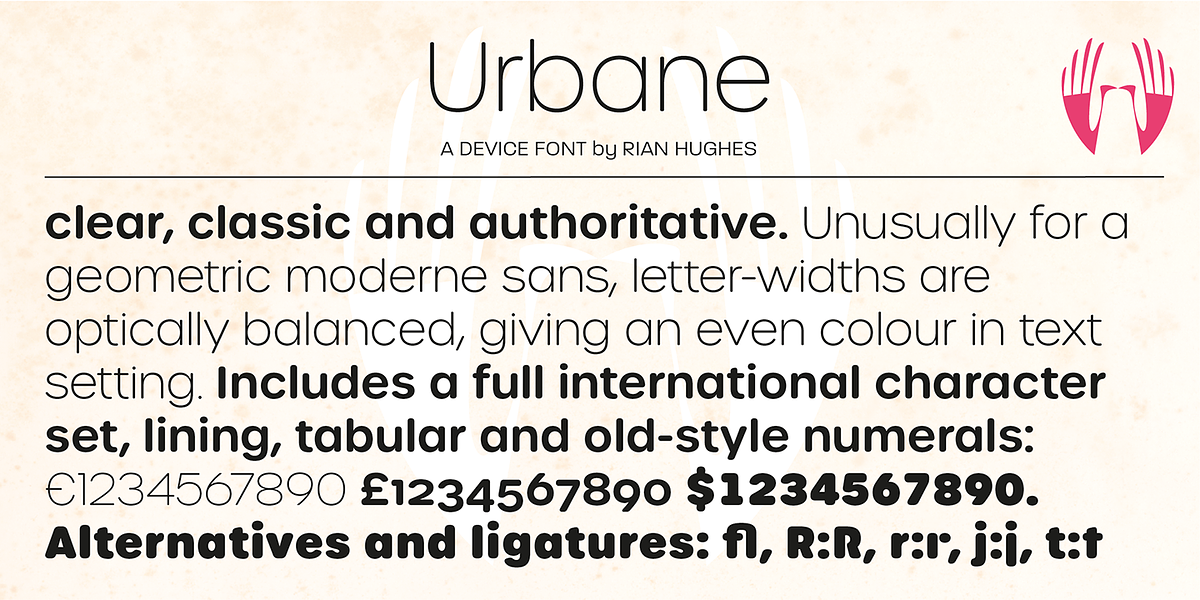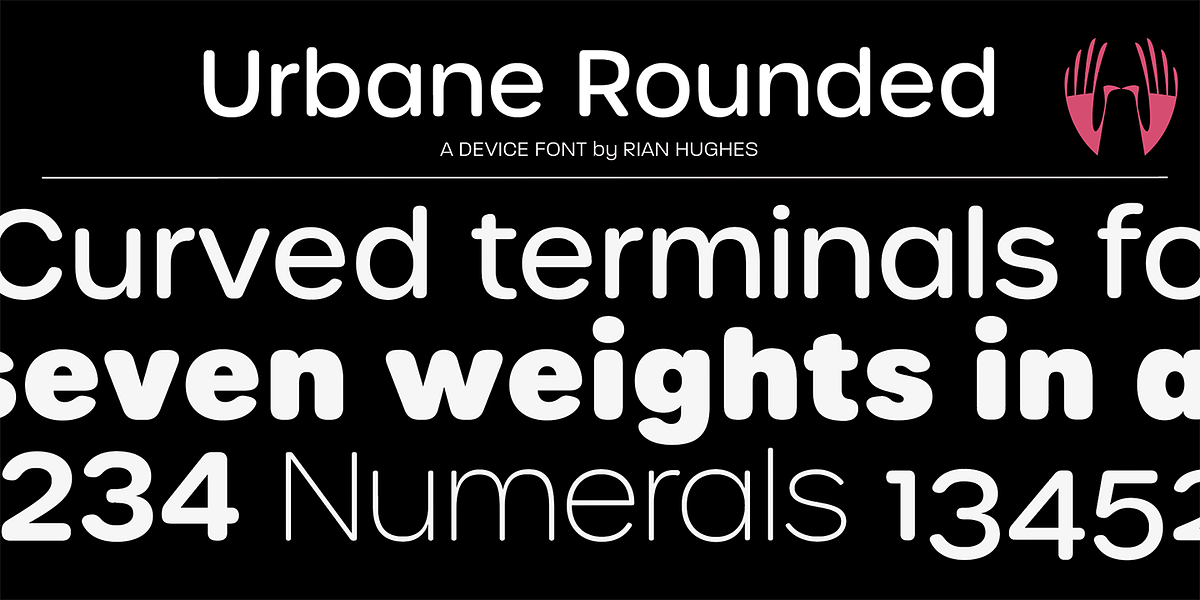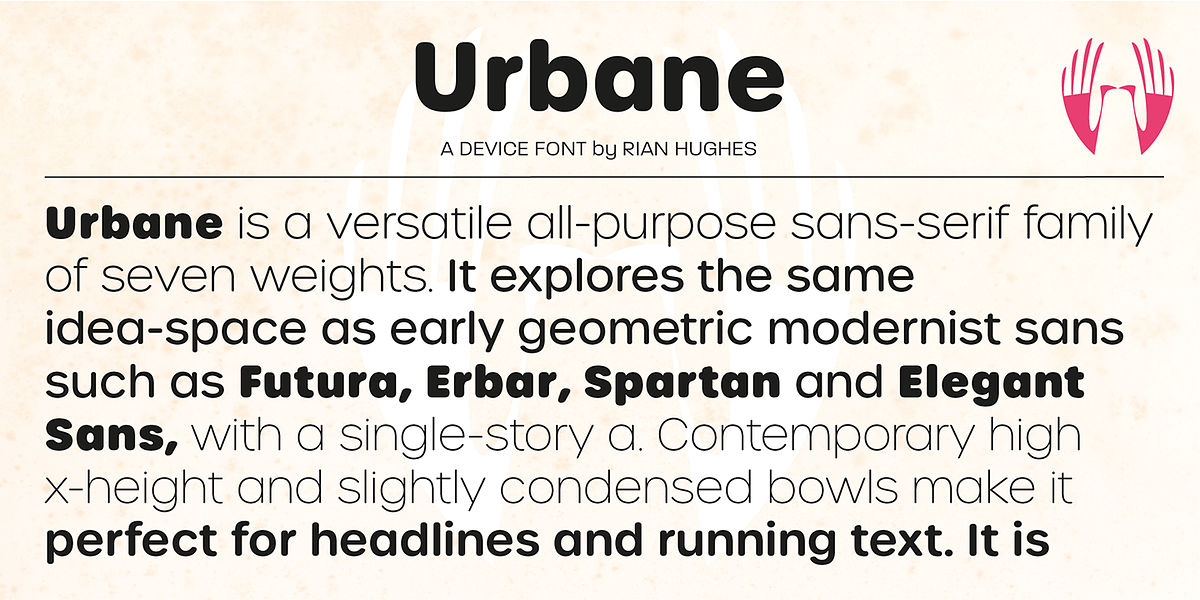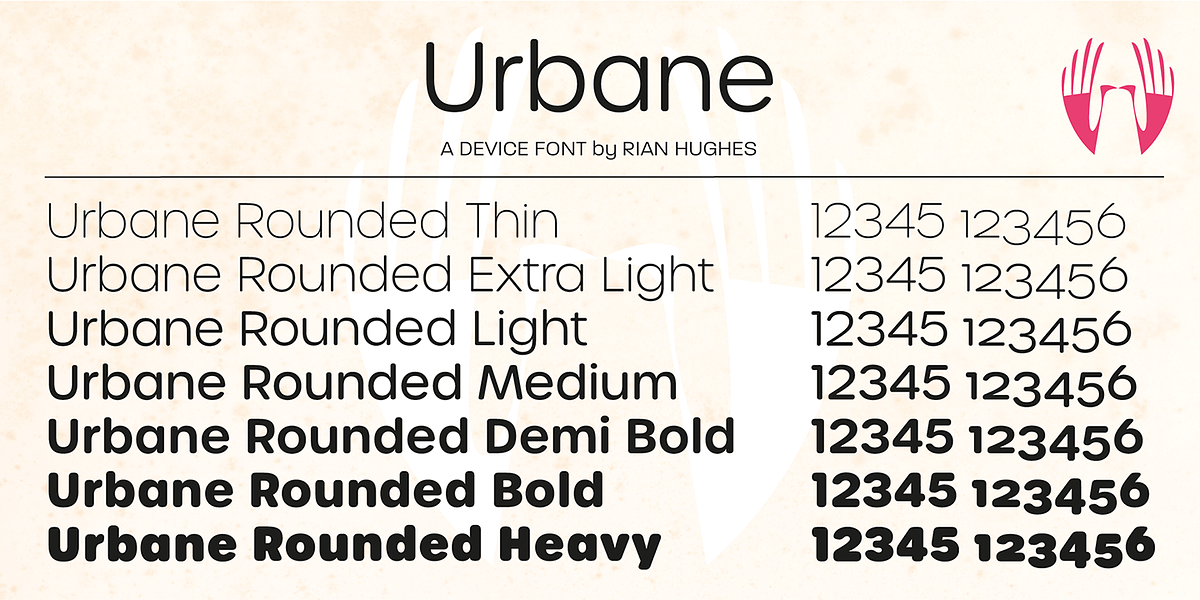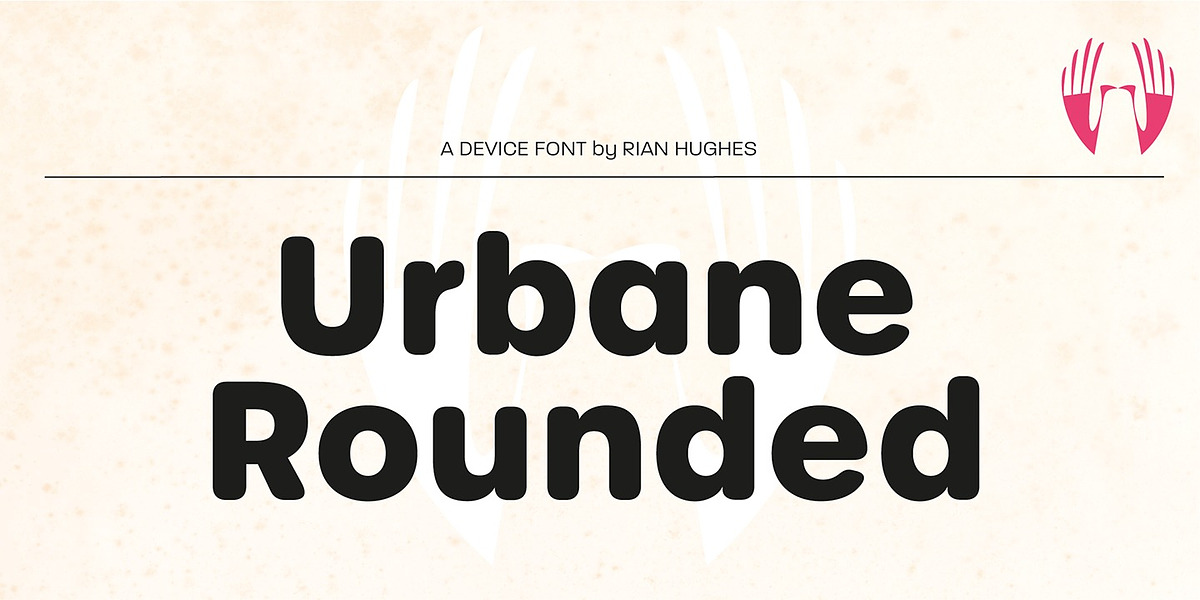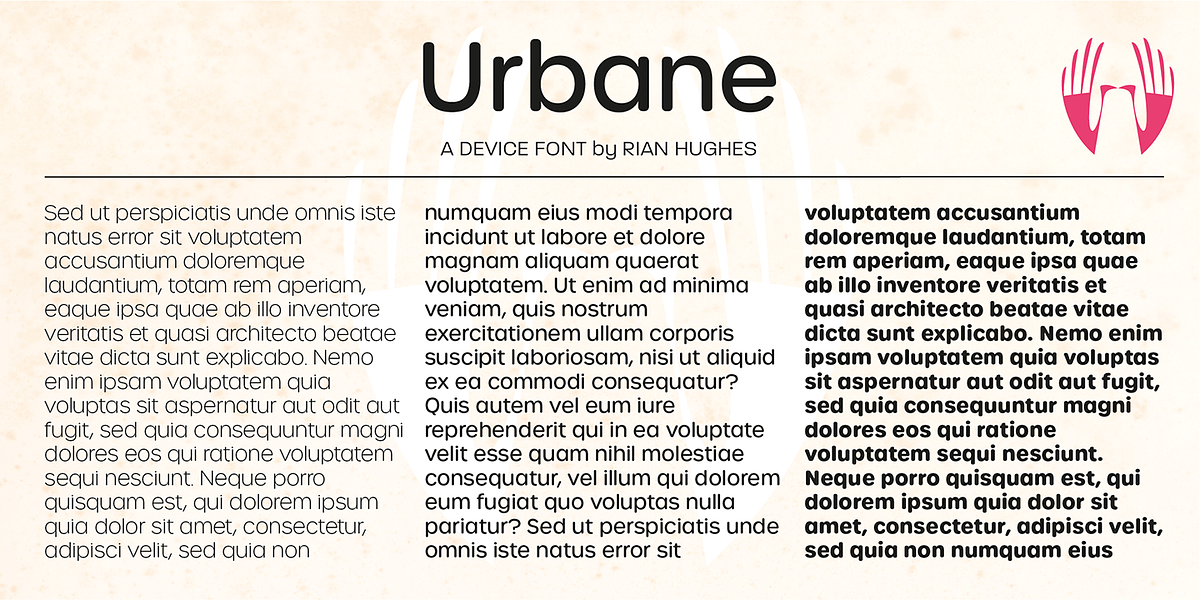
Urbane Rounded
Urbane Rounded is a modern geometric sans-serif font that draws inspiration from classic designs like Futura and Erbar. Its rounded forms give it a friendly and approachable feel, while its clear structure makes it highly legible for both headlines and body text. The font features a high x-height and slightly condensed bowls, contributing to an overall balanced and visually appealing design. Urbane Rounded includes a full set of international characters and various numeral styles (lining, tabular, and old-style), making it suitable for a wide range of applications.